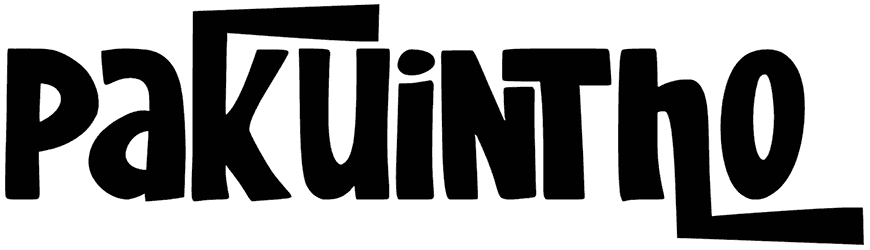
Pakuintho Font
You should be a creative person to choose Pakuintho for your project. Not everyone can put up with that much hilarious tone in a text, but us? We would love to have something that adorable and playful in our own projects. What about you?
You have to admit it’ll be just the best cartoon font for your kid’s apparel, animation logos, toy advertisements, zoo posters, and anything like that where you can let that inner child of yours smoothly take charge.